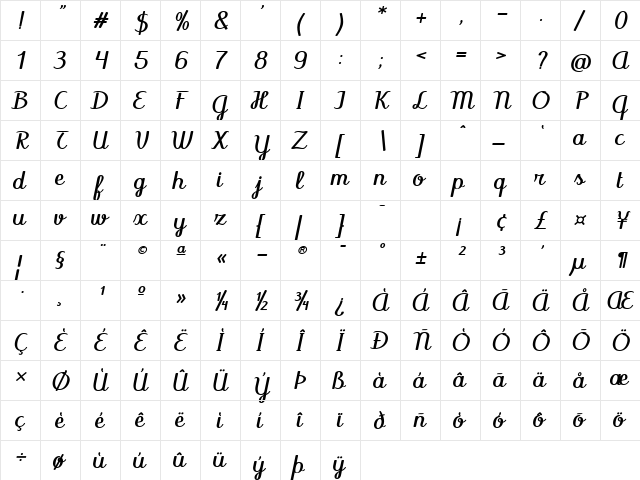
Complete Mamzelle ExtExp Italic glyph index. Displaying only characters natively supported by Mamzelle ExtExp Italic font.
Mamzelle ExtExp is a composed and adaptable typeface that performs quietly and consistently across a wide range of design contexts. The slanted form adds forward momentum and visual energy.
Pro Tip: Use Mamzelle ExtExp for emphasis, pull quotes, and subheadings where its slanted energy can add rhythm to the layout.
Who designed the Mamzelle ExtExp Italic font?